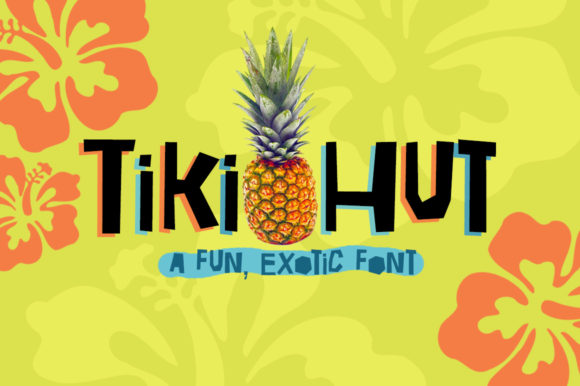
Embark on a typographic adventure with Tiki Hut Font, an exotic display font that transports you to a tropical paradise. Let your imagination run wild with its playful charm, evoking images of swaying palms, vibrant sunsets, and crystal-clear waters. Crafted by Quirky Queen Media, this font is a visual delight, adding a touch of whimsy and joy to your designs.
Designed for those with a passion for adventure and creativity, Tiki Hut Font is anything but ordinary. Its lively and cheerful style is an instant mood booster, making it ideal for adding a splash of fun to branding, social media, invitations, and more. Its hand-painted aesthetic gives your designs an organic and personal touch, capturing the essence of tropical charm.
Immerse yourself in the vibrant world of Tiki Hut Font. Dive into its playful characters and let them ignite your imagination. With its unique tropical flair, this font is a creative force that breathes life into your words. Embrace the carefree spirit of the islands and let Tiki Hut Font lead you on a typographic journey like no other.
Indulge in the creative possibilities of Tiki Hut Font today. Whether you're an enthusiastic crafter, a passionate designer, or simply someone who loves to add a touch of uniqueness to their projects, this font is the perfect companion for your visual explorations. Join the creative tribe who have fallen in love with Tiki Hut Font, and let it transform your designs into captivating works of art.
Escape the mundane and embrace the tropical vibes of Tiki Hut Font. Let its playful charm captivate your audience and transport them to a world of vibrant colors and endless possibilities. With its energetic and infectious style, this font is sure to leave a lasting impression on anyone who lays eyes upon it. Unleash the power of Tiki Hut Font and create designs that are as captivating as they are enchanting.